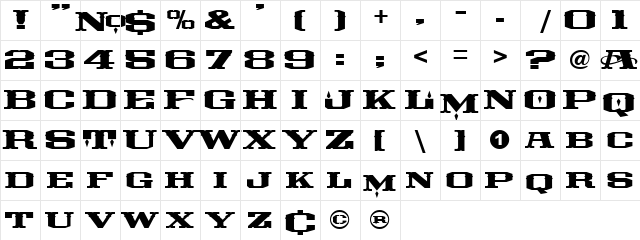
LHF Timberlodge Regular
Design Context for LHF Timberlodge Typeface
LHF Timberlodge is a composed and adaptable typeface that performs quietly and consistently across a wide range of design contexts.